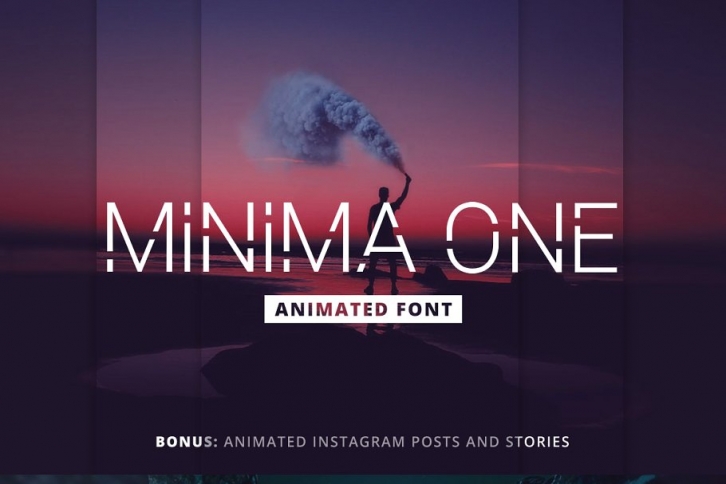
Minima One is a modern and minimalist sans-serif font that's pre-animated in Photoshop saved as .PSB files which you can easily drag and drop into your artboard and move around like regular Smart Object files in order to create your own video ads or social media content.